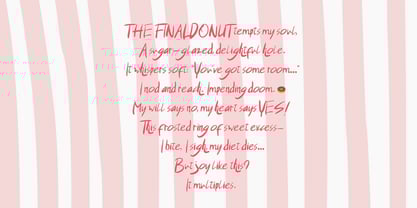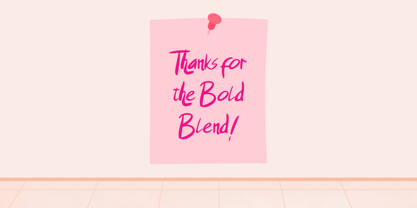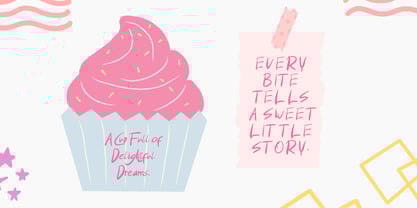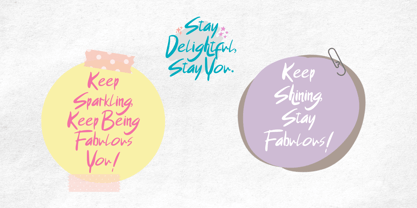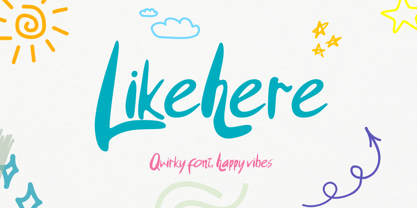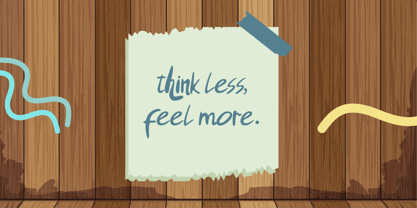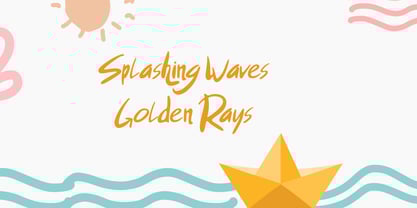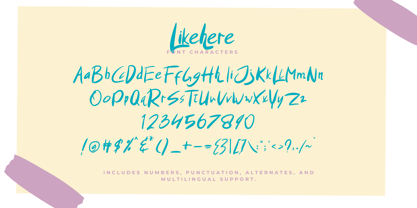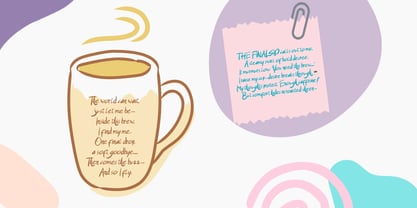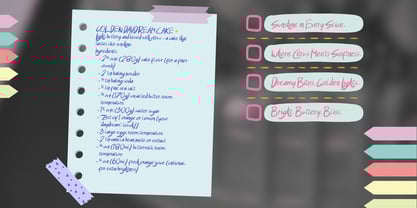
Likehere
by Gian Studio
The Likehere Font Family was designed by Yusliana M Isa and published by Gian Studio. Likehere contains 1 styles. More about this family
Likehere – Playful Display Handwritten Font
Likehere is a fun and friendly handwritten display font that brings a burst of personality to your designs. With bouncy curves, casual strokes, and a carefree spirit, Likehere is perfect for projects that need a touch of joy — from playful branding and kids’ products to social media graphics, greeting cards, and creative packaging.
Its hand-crafted feel and energetic flow make it a great choice for anything vibrant, quirky, and full of life. Whether used in large headlines or bold logos, Likehere makes your message feel personal and full of character.
🌈 Let your words play, laugh, and shine — with the spirited charm of Likehere.
Designers: Yusliana M Isa
Foundry: Gian Studio